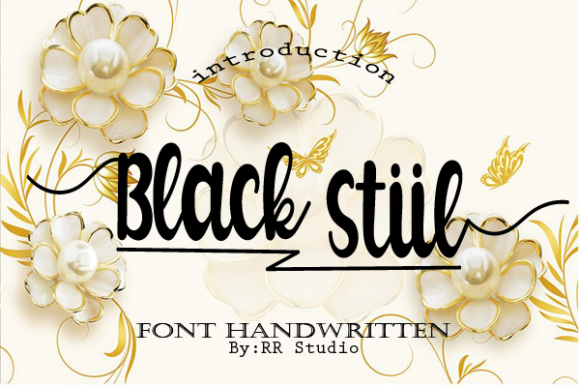
Black Stiil Font
Step into the world of sophistication and grace with Black Stiil, the script font that exudes elegance like no other. This handwritten beauty is a masterpiece crafted by RR Studio, designed to add a touch of timeless charm to your creative projects. Experience the allure of calligraphy and turn your words into art with Black Stiil.
Immerse yourself in the romance of flowing lines and intricate swirls that evoke a sense of timeless elegance. Black Stiil's graceful strokes will elevate your designs to new heights, leaving an unforgettable impression on your audience. Whether you're crafting wedding invitations, thank-you cards, or simply adding a touch of personal flair to your quotes and greeting cards, Black Stiil is the perfect choice for the discerning designer.
Unlock your creativity and let your imagination run wild with Black Stiil. Its versatility knows no bounds, adapting seamlessly to logos, business cards, and any other design that yearns for a touch of sophistication. Transform your brand identity into a symbol of elegance and professionalism, or create captivating social media graphics that will leave your followers spellbound.
With Black Stiil, you'll discover an endless realm of possibilities, where every word becomes an artistic masterpiece. Step into the realm of timeless elegance and let Black Stiil guide you on a journey of creative exploration. Your designs will radiate an air of sophistication, leaving your audience captivated and inspired. Unleash the power of Black Stiil today and elevate your creativity to new heights.